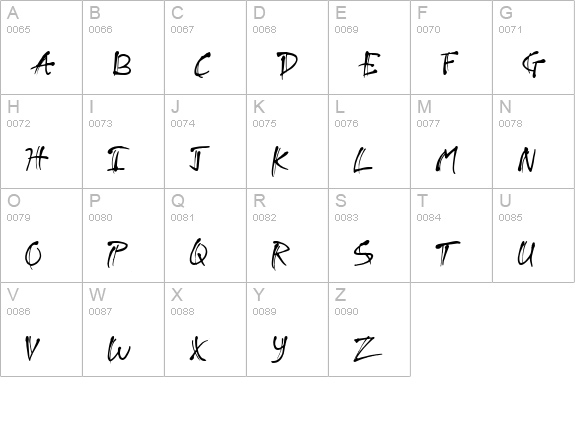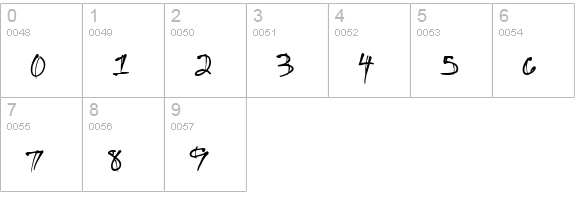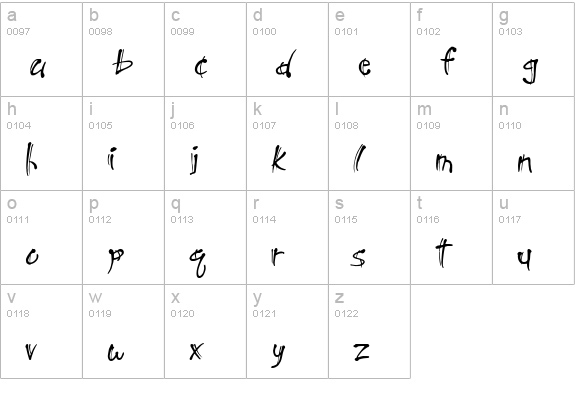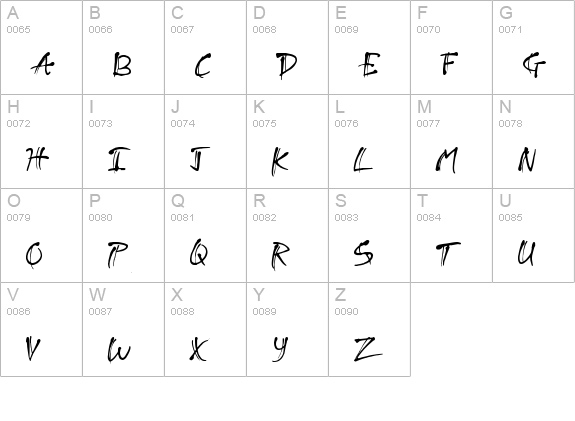
CK Stacatto Font Details
Introducing CK Stacatto font, a modern and stylish typeface that is sure to make your designs stand out. This unique font features elegant curves and sharp edges, giving it a sophisticated and contemporary look. Whether you're designing a logo, poster, or website, CK Stacatto is the perfect choice to add a touch of class to your projects. The best part is that CK Stacatto is available for free download at FontsMarket.com. Yes, you read that right – this stunning font can be yours at no cost! Simply head over to FontsMarket.com and start using CK Stacatto in your designs today. Don't miss out on this amazing opportunity to elevate your typography game with this exceptional font.